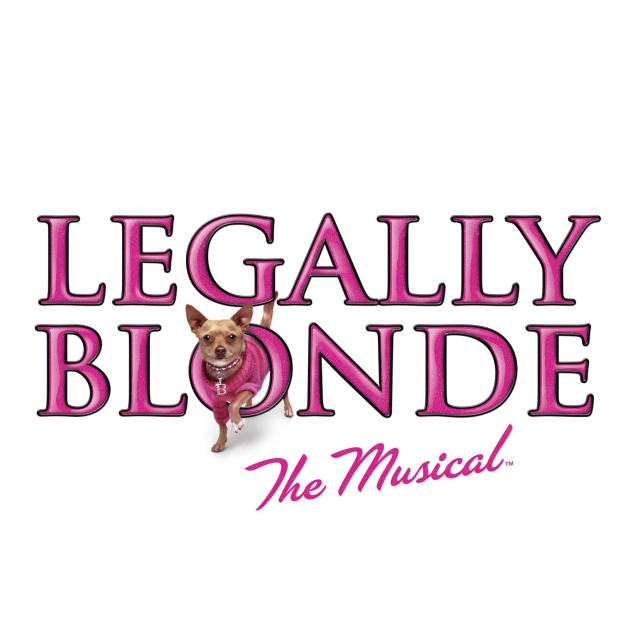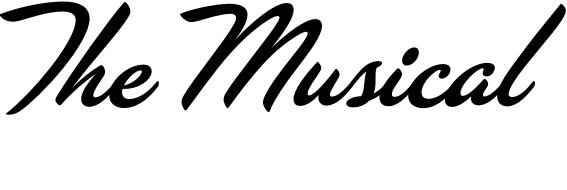
Legally Blonde Font
ComedyLegally Blonde is a musical based on the popular 2001 movie, following the journey of Elle Woods as she attends Harvard Law School to win back her ex-boyfriend.
The logo for the ''Legally Blonde'' musical features the classic typeface, Trajan, designed by Carol Twombly in 1989 for Adobe. The words "The Musical" are written in a playful brush script style named Las Vegas Fabulous, created by House Industries.